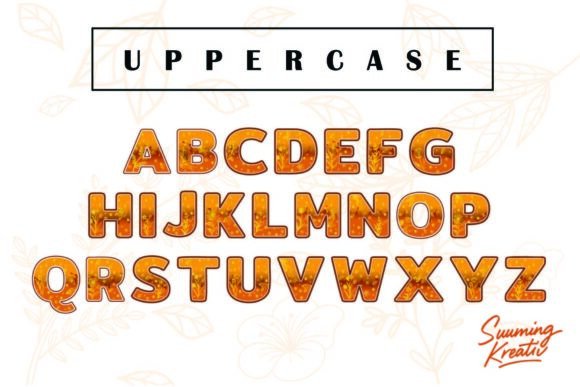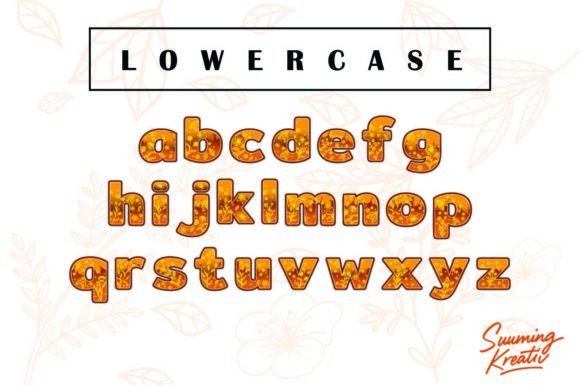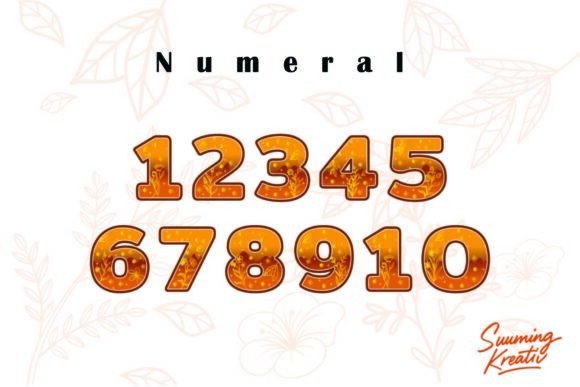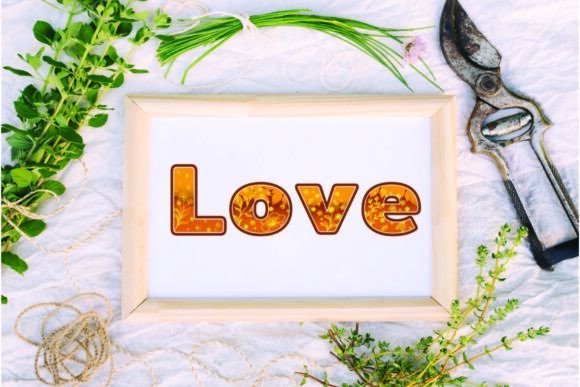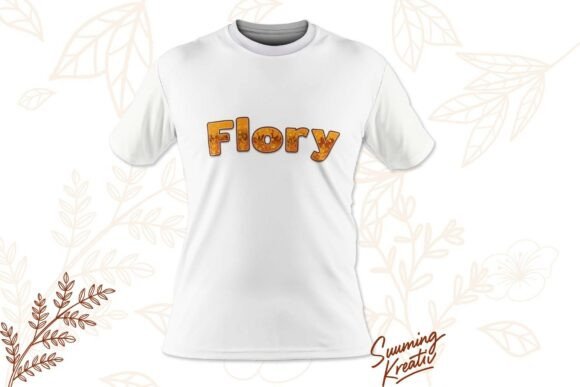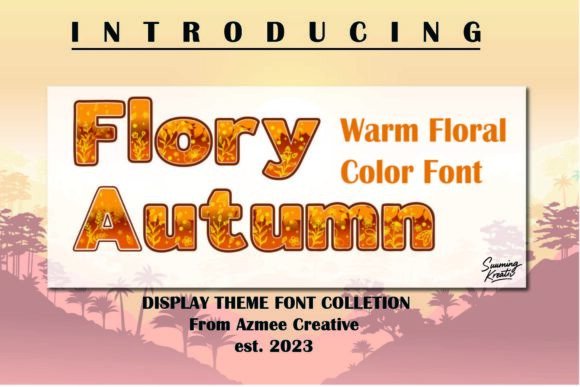
Introducing Flory Autumn Font: A Seasonal Display Typeface to Warm Your Designs
As the seasons change and autumn arrives, designers and crafters are on the lookout for unique and captivating typography to infuse their projects with the cozy warmth and natural beauty of the season. Look no further than the Flory Autumn font, a stunning color font that embodies the essence of autumn with its intricate floral and leaf patterns embedded directly into the thick, rounded letterforms.
A Unique Display Typeface for Seasonal Designs
Flory Autumn is a decorative display typeface that offers a rich, complex visual texture with every character. The warm, autumnal color scheme immediately evokes feelings of coziness and natural beauty, making it perfect for high-impact seasonal designs where texture and visual richness are paramount. This font collection is a beautiful, decorative display piece that eliminates the need for manual clipping masks, saving designers time and effort.
Ideal for Seasonal Promotions and Projects
Flory Autumn is ideal for a wide range of seasonal projects, including holiday and seasonal promotions, fall festival posters, craft and scrapbooking projects, boutique branding (especially gifts or food), Thanksgiving decor, invitations, or any project aiming to evoke a feeling of cozy warmth, natural beauty, and delicate seasonal charm. Whether you’re designing for print or digital, this font is sure to add a touch of autumnal magic to your creations.
What is a Color Font?
Flory Autumn is a color font, specifically an OpenType-SVG font, which means it requires specific software compatibility. But don’t worry, many popular design software programs, including Adobe Creative Cloud applications, support color fonts. This innovative technology allows designers to use a single font file that contains multiple colors, eliminating the need for manual color switching or layering.
Combining Flory Autumn with Other Seasonal Fonts
For a cohesive seasonal look, consider combining Flory Autumn with its sister fonts, Flory Spring and Flory Frost. These font collections offer a range of possibilities for designing seasonal materials that evoke the unique charm of each time of year. Flory Spring brings a fresh, floral feel to your designs, while Flory Frost offers a winter wonderland-inspired aesthetic. Together, these fonts provide a versatile and beautiful way to add seasonal flair to your designs.
Tips for Using Flory Autumn in Your Designs
Here are a few tips for getting the most out of Flory Autumn in your designs:
- Use Flory Autumn as a headline or title font to add instant autumnal charm to your designs.
- Combine Flory Autumn with other seasonal fonts and graphics to create a cohesive look across your designs.
- Don’t be afraid to get creative and try out new and innovative ways to use this unique font.
Flory Autumn font is a unique and captivating display typeface that embodies the warmth and natural beauty of the autumn season. With its intricate floral and leaf patterns, warm color scheme, and innovative color font technology, this font is perfect for designers and crafters looking to add a touch of seasonal charm to their projects. Whether you’re designing for print or digital, Flory Autumn is sure to become a go-to font in your seasonal design arsenal.